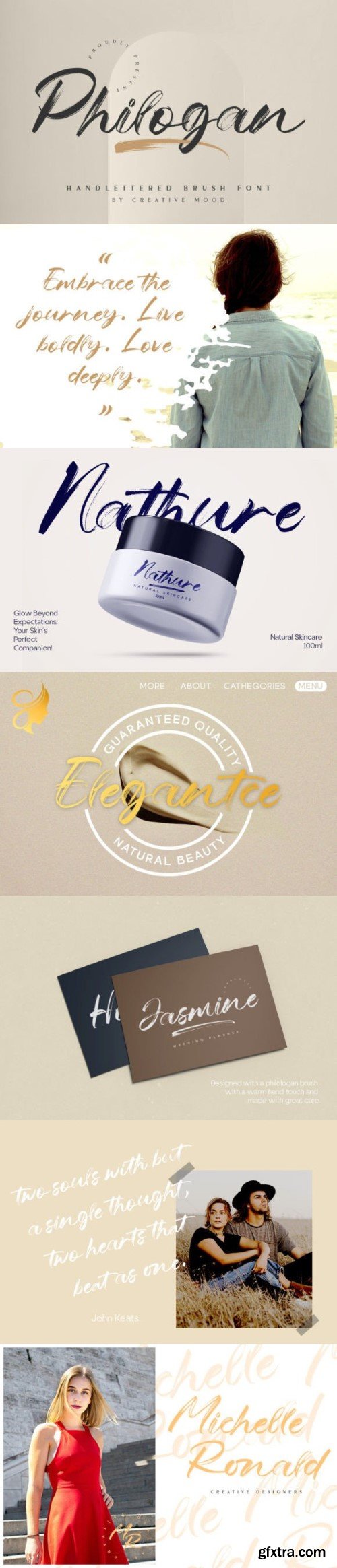
菲罗汉字体
Philoghan is a captivating blend of artistic finesse and timeless elegance. Crafted with meticulous attention to detail, Philoghan exudes an air of sophistication through its fluid strokes and graceful curves. This brush script font offers a harmonious balance between modernity and classic charm, making it a versatile choice for a wide range of design projects. Whether used for branding, packaging, invitations, or editorial designs, Philoghan adds a touch of refined beauty and creativity to any creative endeavor, ensuring your message is conveyed with style and grace.”